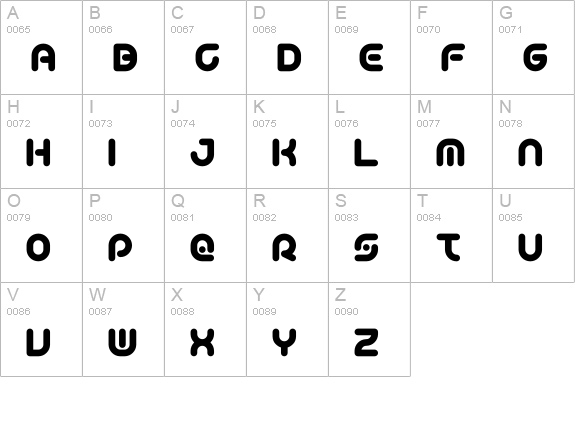
Introducing Teacher_A, a one-of-a-kind font that embodies the essence of education and professionalism. This versatile font is designed specifically for teachers, educators, and anyone looking to add a touch of elegance and sophistication to their work. With its clean lines and easy readability, Teacher_A is perfect for creating eye-catching lesson plans, educational materials, presentations, and more. What sets Teacher_A apart is not just its aesthetic appeal, but the fact that it is freely available to download at FontsMarket.com. That's right, you can now enhance your teaching materials and bring your creative visions to life without having to worry about any additional costs. With Teacher_A, you have the freedom to explore your creativity and make a lasting impression on your students and colleagues. Whether you're designing worksheets, posters, or even classroom signage, Teacher_A offers a wide range of character sets, including uppercase, lowercase, numbers, and punctuation. Its effortless legibility ensures that your messages are clear and easily understood by students of all ages. With its timeless design, Teacher_A is suitable for both print and digital applications. Its compatibility with various design software makes it a hassle-free choice for teachers who want to incorporate a touch of elegance into their work. So why wait? Download Teacher_A today at FontsMarket.com and unlock a world of possibilities for your teaching materials. With this free font at your disposal, you can elevate your educational materials to new heights and inspire your students like never before. Let Teacher_A be your trusted companion in the journey of knowledge-sharing and watch as your creations come to life with style and grace.